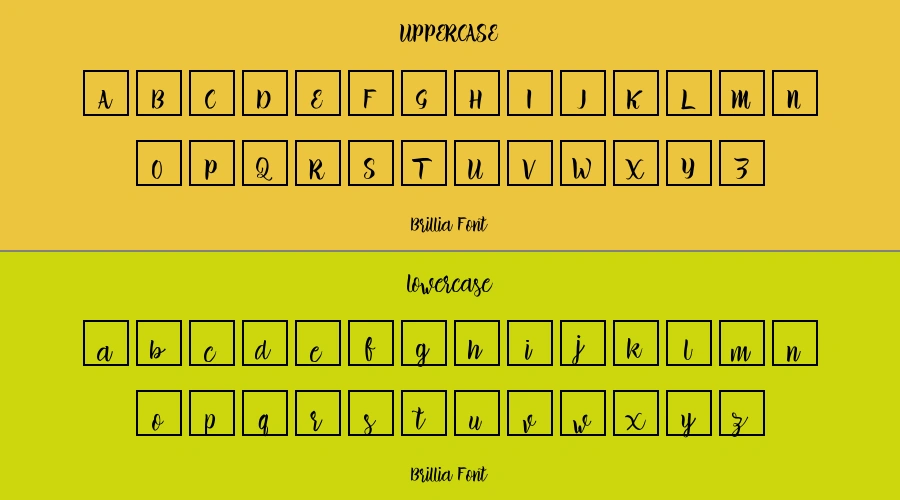
About Brillia Font
Brillia Font stands out for its distinctive combination of ink traps and human connection. Ideal for financial statements, it provides the distinctiveness and system compatibility that professional projects demand. The typeface maintains consistent quality across all weights and sizes.
Key features include refined rhythmic patterns and practical contextual alternates, enhancing typographic expression. In colophons applications, Brillia Font demonstrates exceptional file optimization. The character width and historical reference contribute to its distinctive character and professional appeal.